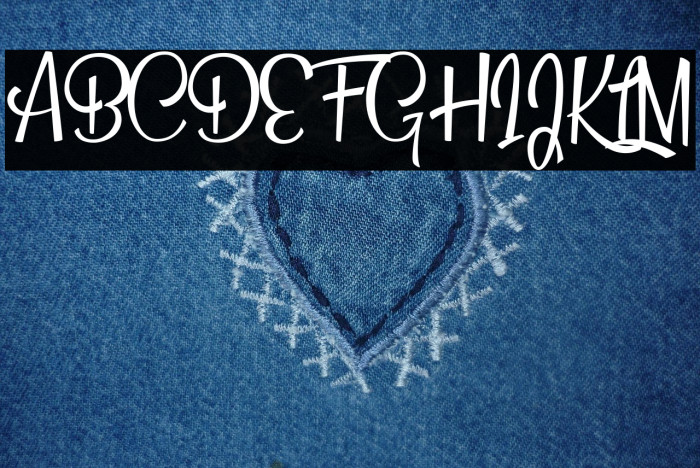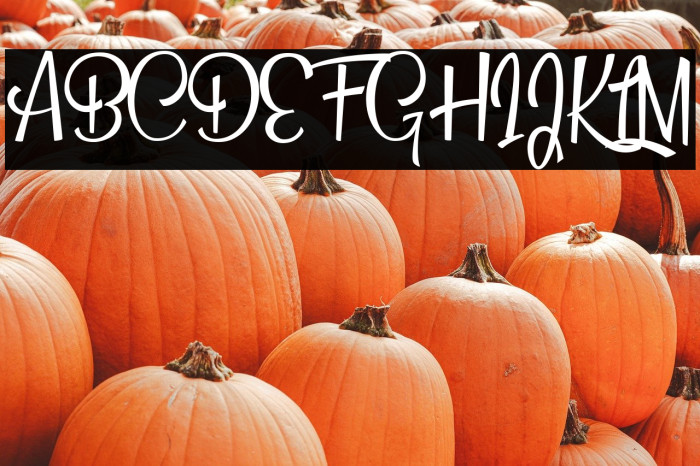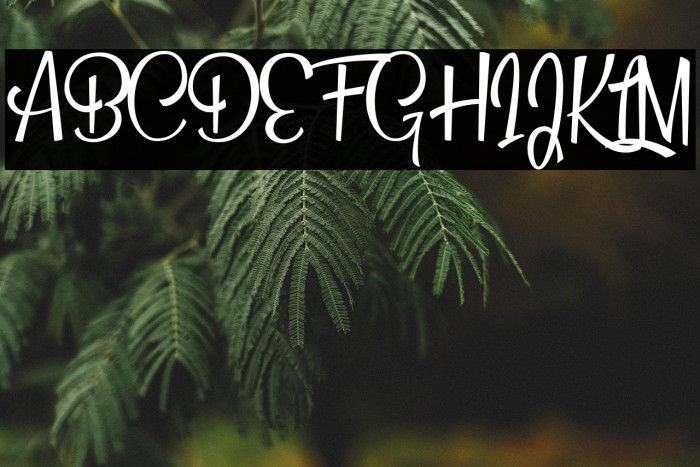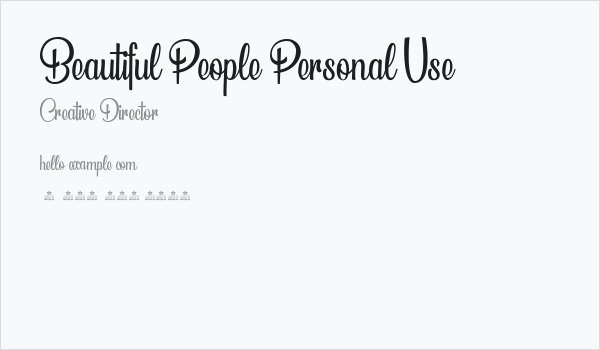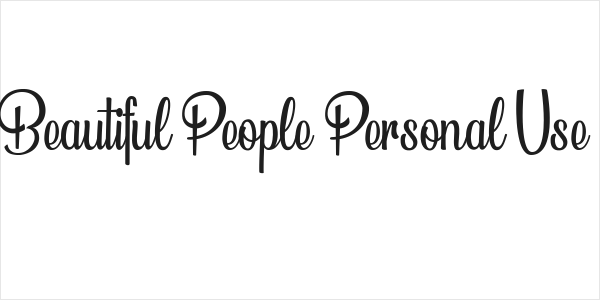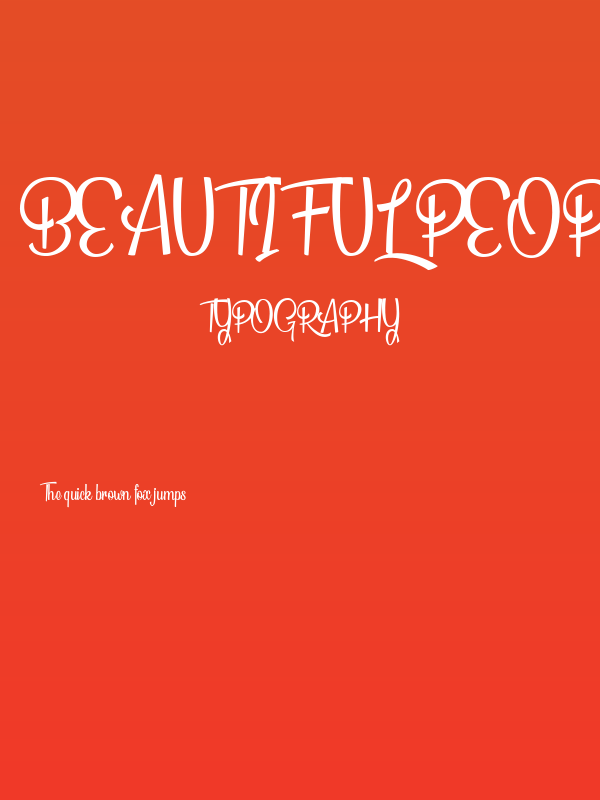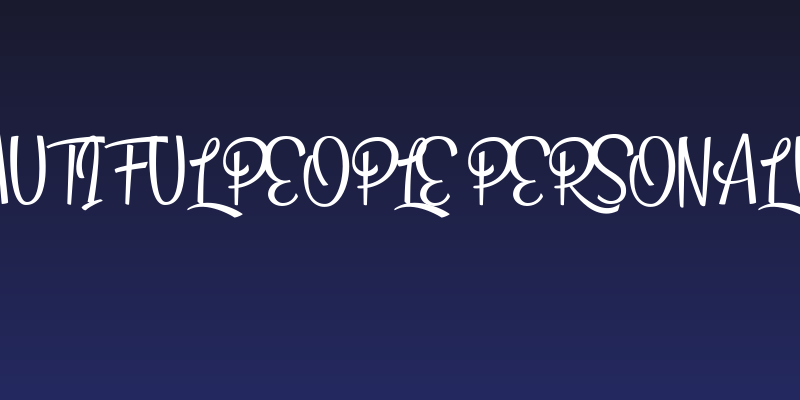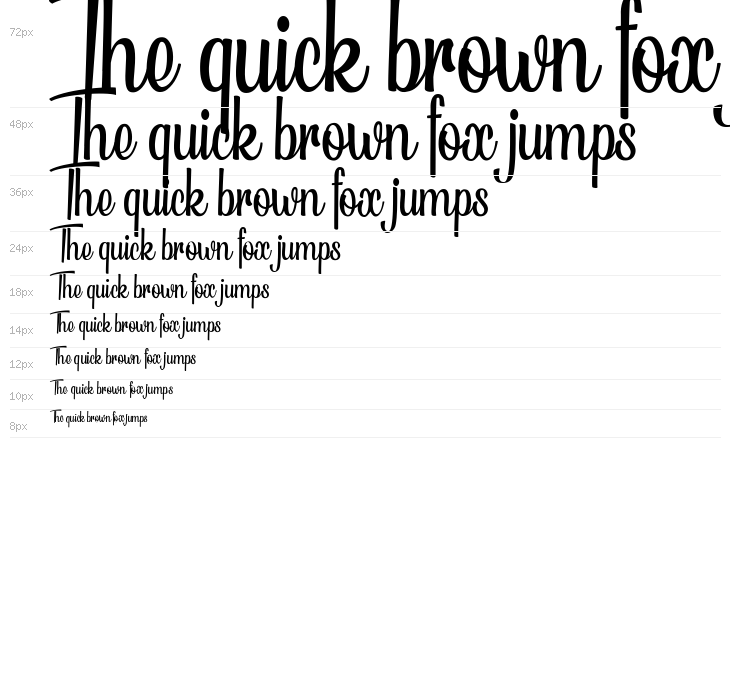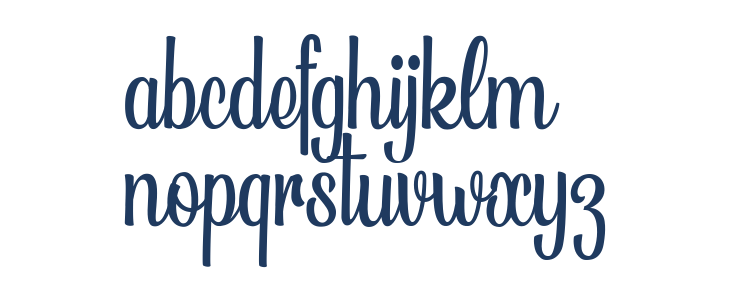
Beautiful People Personal Use Font
Beautiful People Personal Use Description
This font features a playful and artistic script style with a modern twist. The uppercase letters are characterized by their flowing, cursive forms, while the lowercase letters maintain a more structured yet still whimsical appearance. The strokes are smooth and fluid, giving the font a dynamic and lively feel. The overall design is both elegant and approachable, making it suitable for a variety of creative applications. The font's unique character is enhanced by its moderate contrast in stroke thickness, which adds to its visual interest without compromising readability.
| Use Case | Logos, Invitations, Creative projects |
| Proposed Projects | Ideal for wedding invitations, greeting cards, branding projects, and creative posters. |